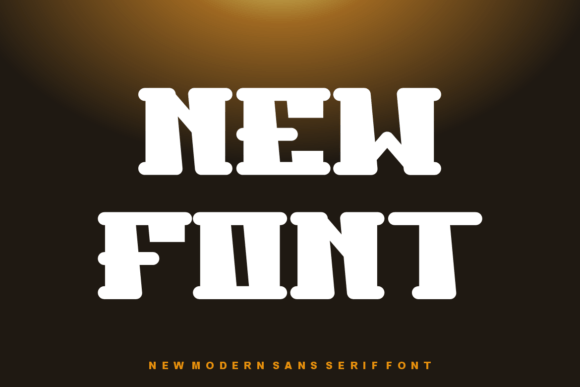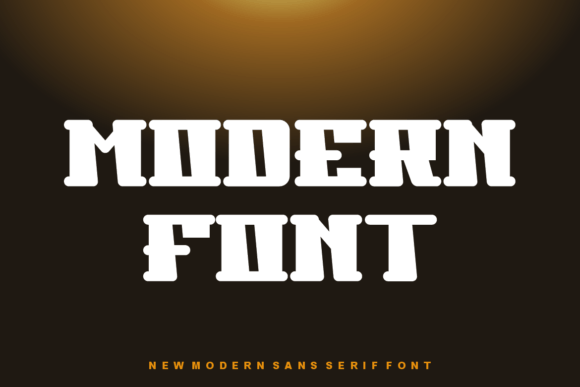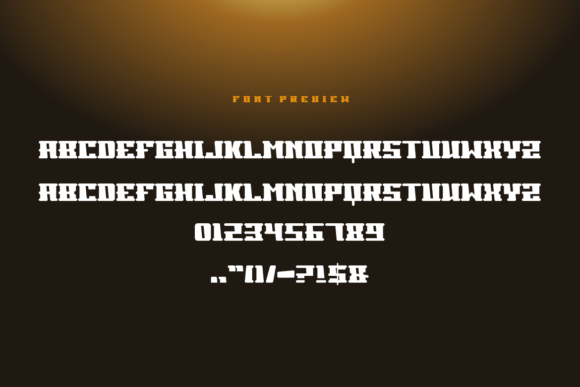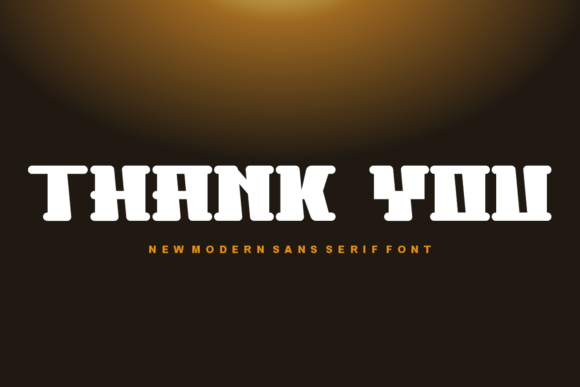
Introduction to Merogan Font
Merogan – Font – Modern Font is a bold and authentic display font.
The font is suitable for any branding project like logo, t-shirt printing, and many more Outstanding in a wide range of contexts.
Key Features of Merogan Font
Why Choose Merogan Font?
Merogan Font offers exceptional quality and versatility, making it a valuable addition to your design toolkit. Whether you’re creating for personal projects or commercial use, Merogan Font delivers professional results.